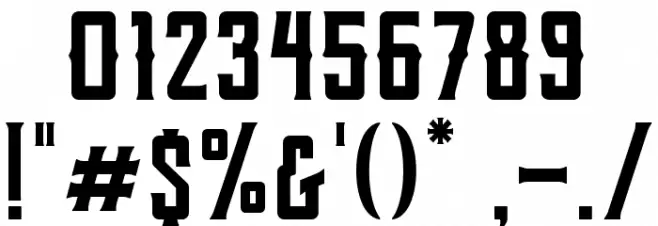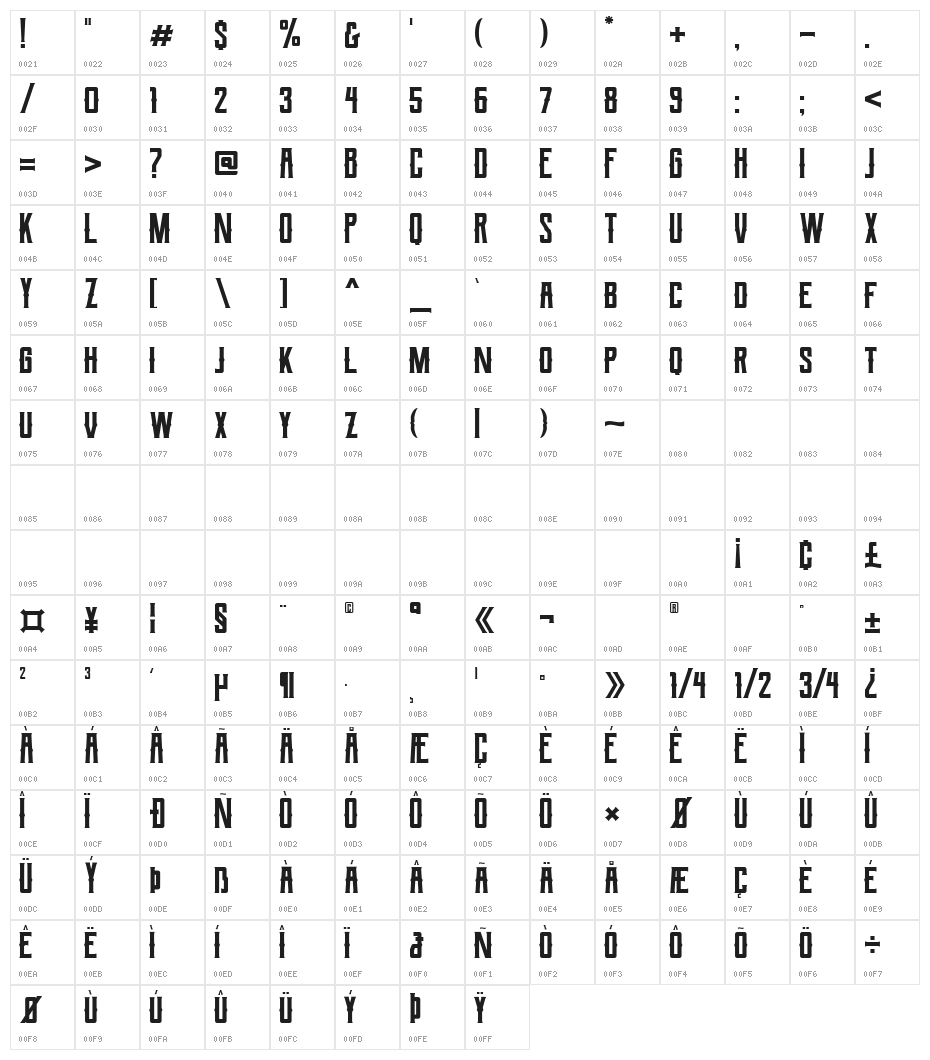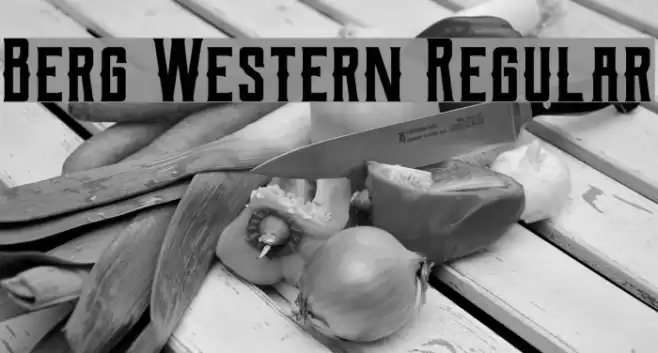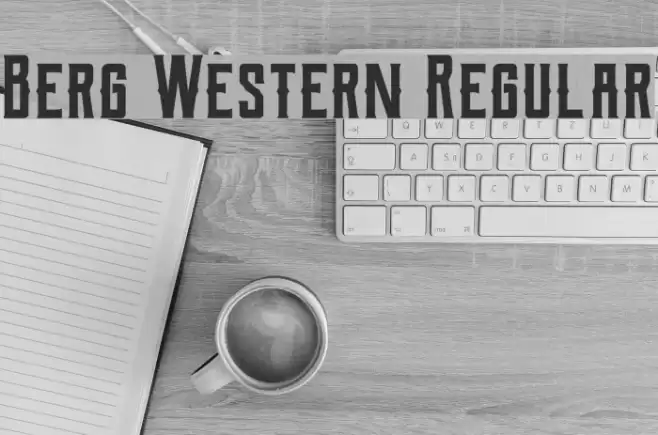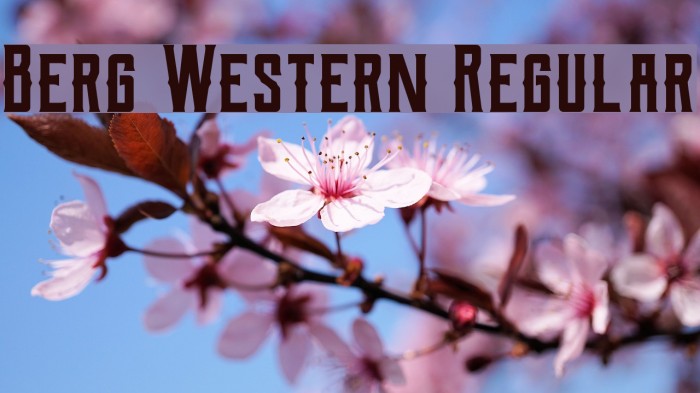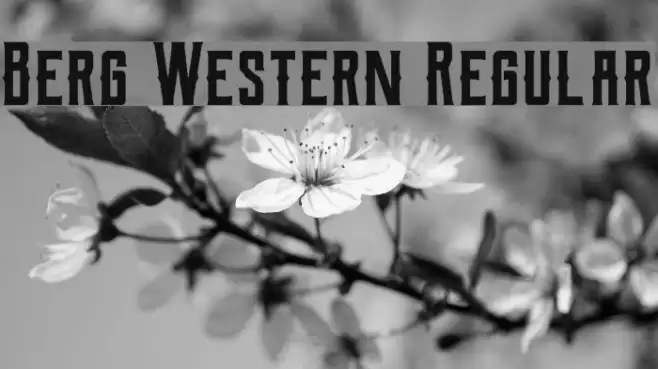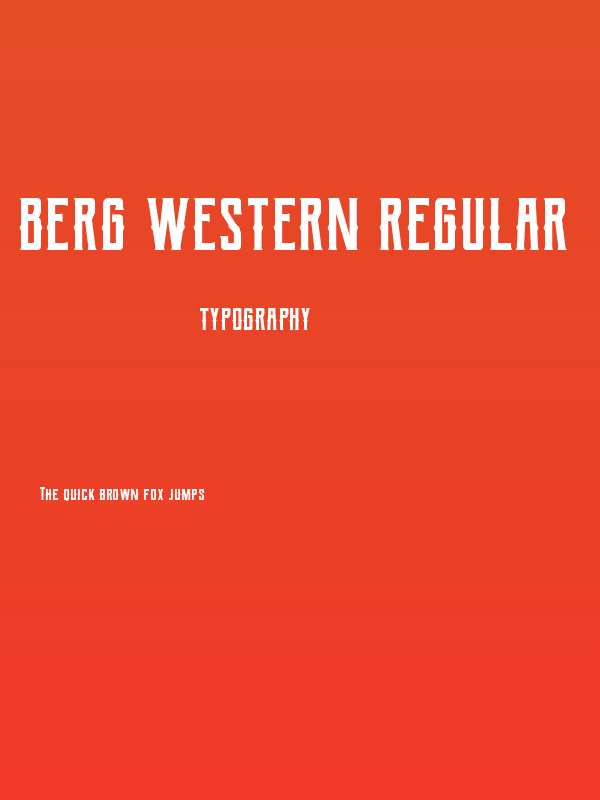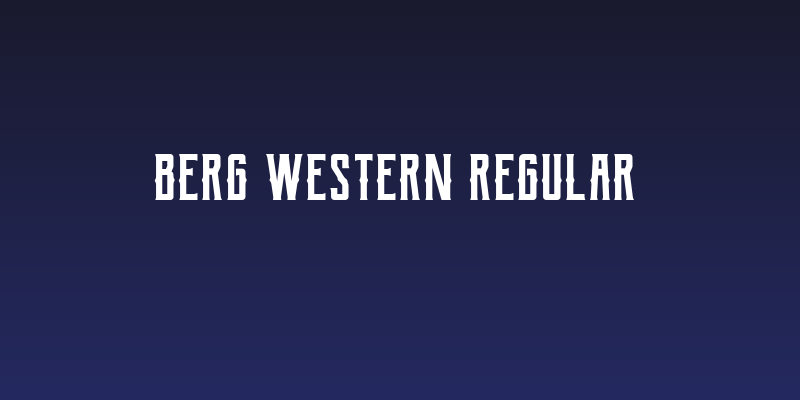
Berg Western Regular Font
Berg Western Regular Description
This font exudes a bold, rugged charm reminiscent of the Old West. Its thick, blocky letters are characterized by sharp, angular serifs and a strong vertical emphasis, creating a sense of strength and stability. The uppercase and lowercase letters maintain a consistent style, with the uppercase being particularly striking. Numbers and special characters are equally robust, ensuring a cohesive look across all text elements. The font's design is both decorative and functional, making it suitable for a variety of creative applications.